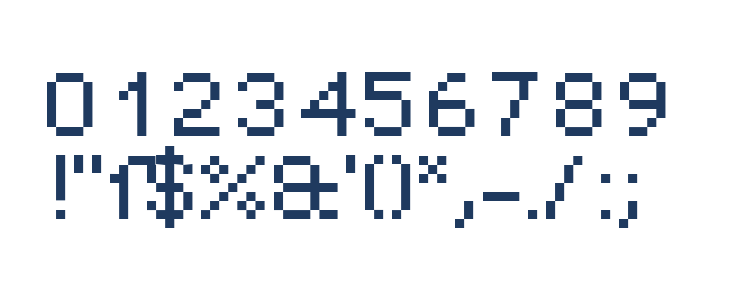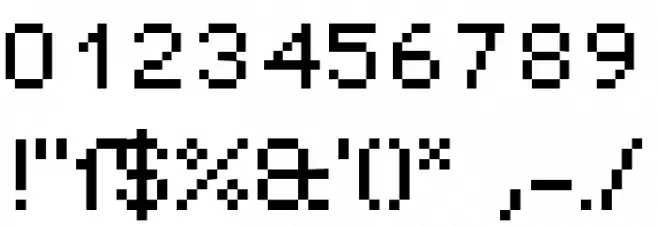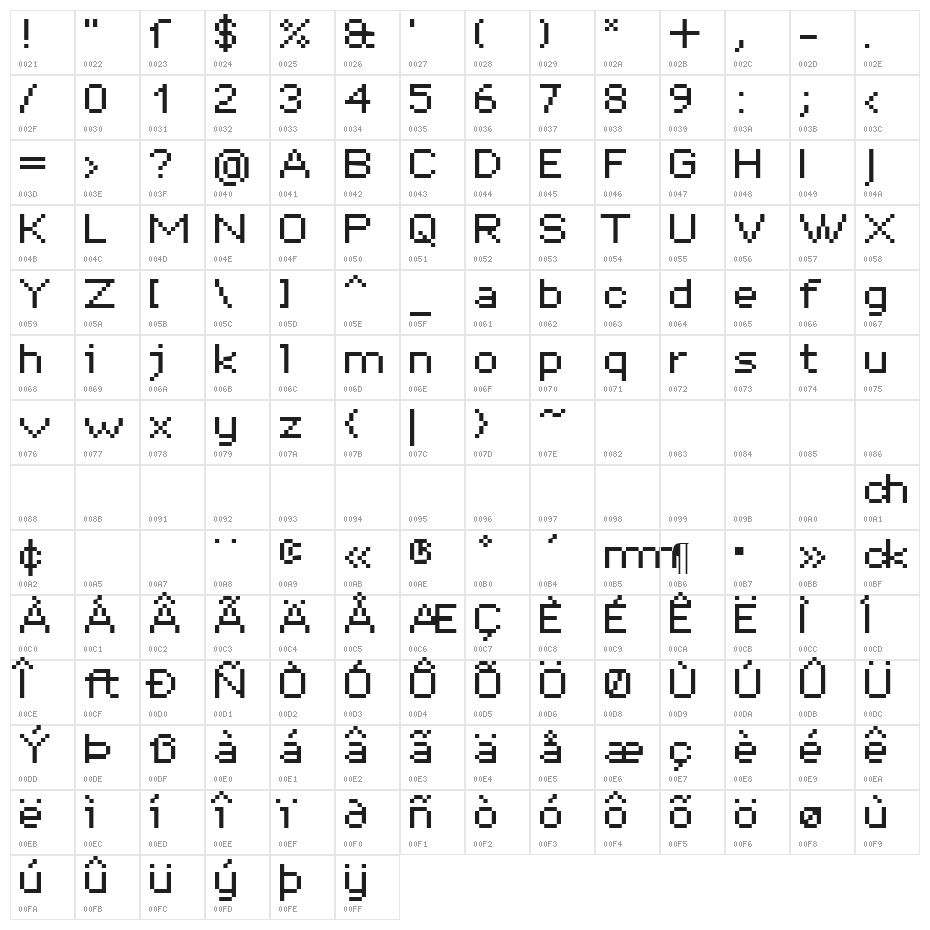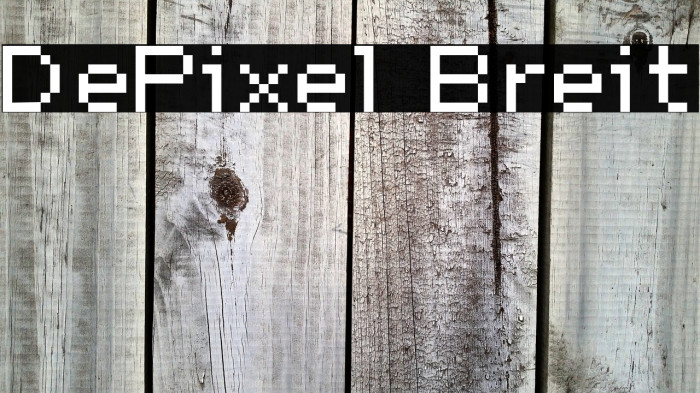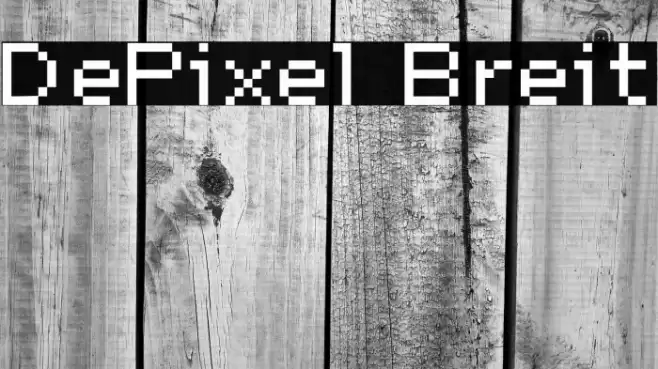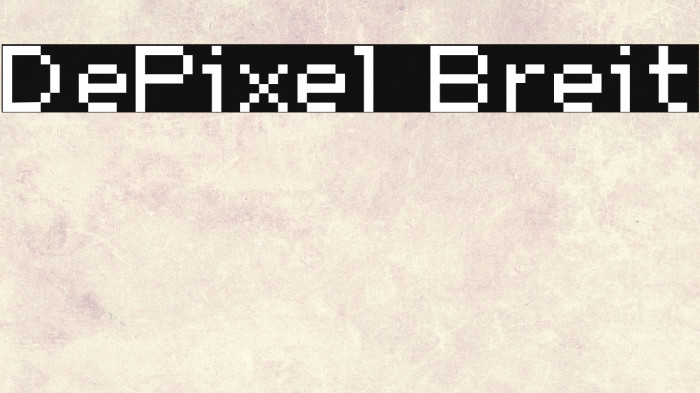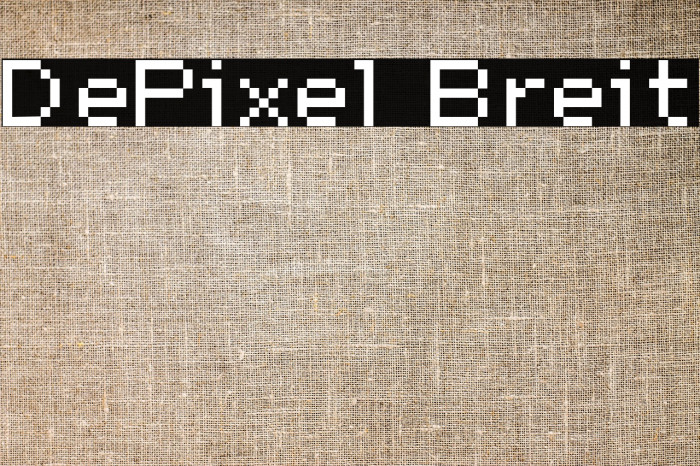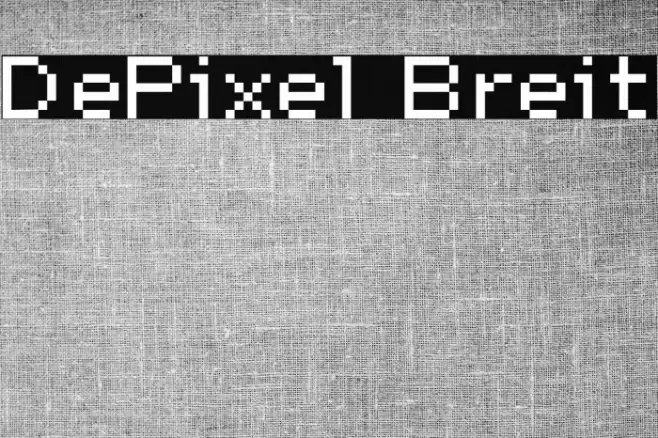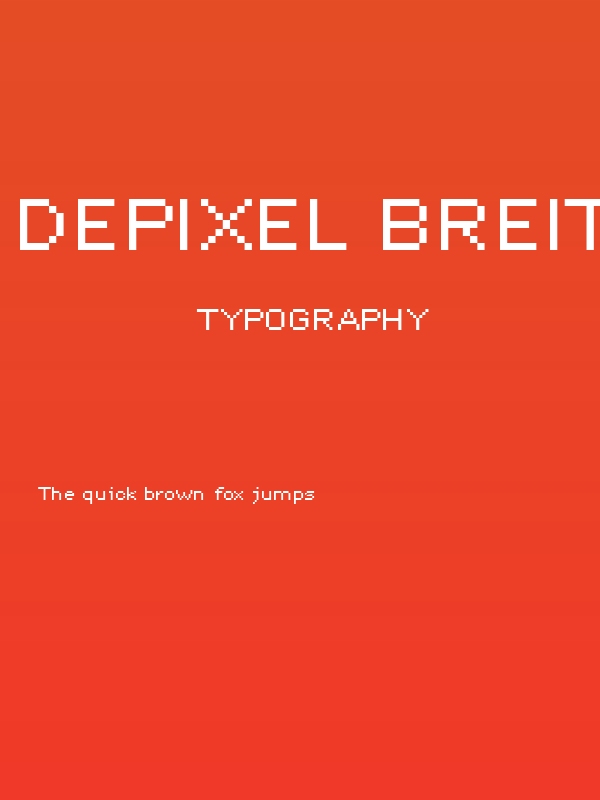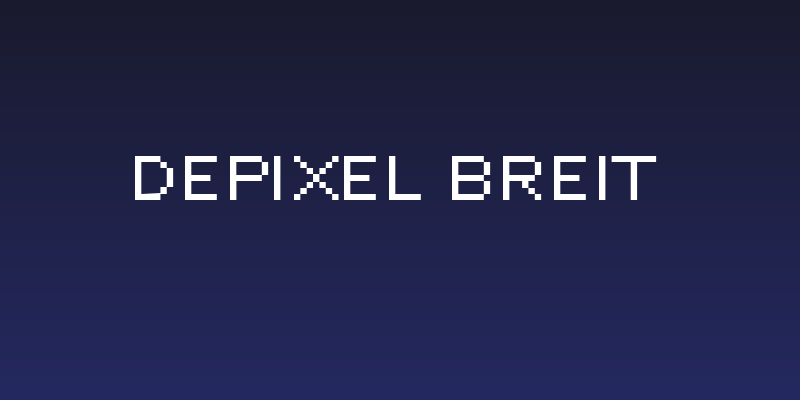
DePixel Breit Font
DePixel Breit Description
This font features a pixelated, blocky design reminiscent of early digital displays and video games. Each character is constructed with a grid-like precision, giving it a distinctly retro and digital aesthetic. The uppercase and lowercase letters maintain a consistent height, contributing to a uniform appearance. The numbers and special characters follow the same pixelated style, ensuring a cohesive look across all glyphs. This font's geometric simplicity and nostalgic charm make it ideal for projects that aim to evoke a sense of vintage technology or digital art.
| Use Case | Logos, Headlines, Digital Art |
| Proposed Projects | Ideal for retro video games, digital art projects, tech-themed designs, and nostalgic branding. |